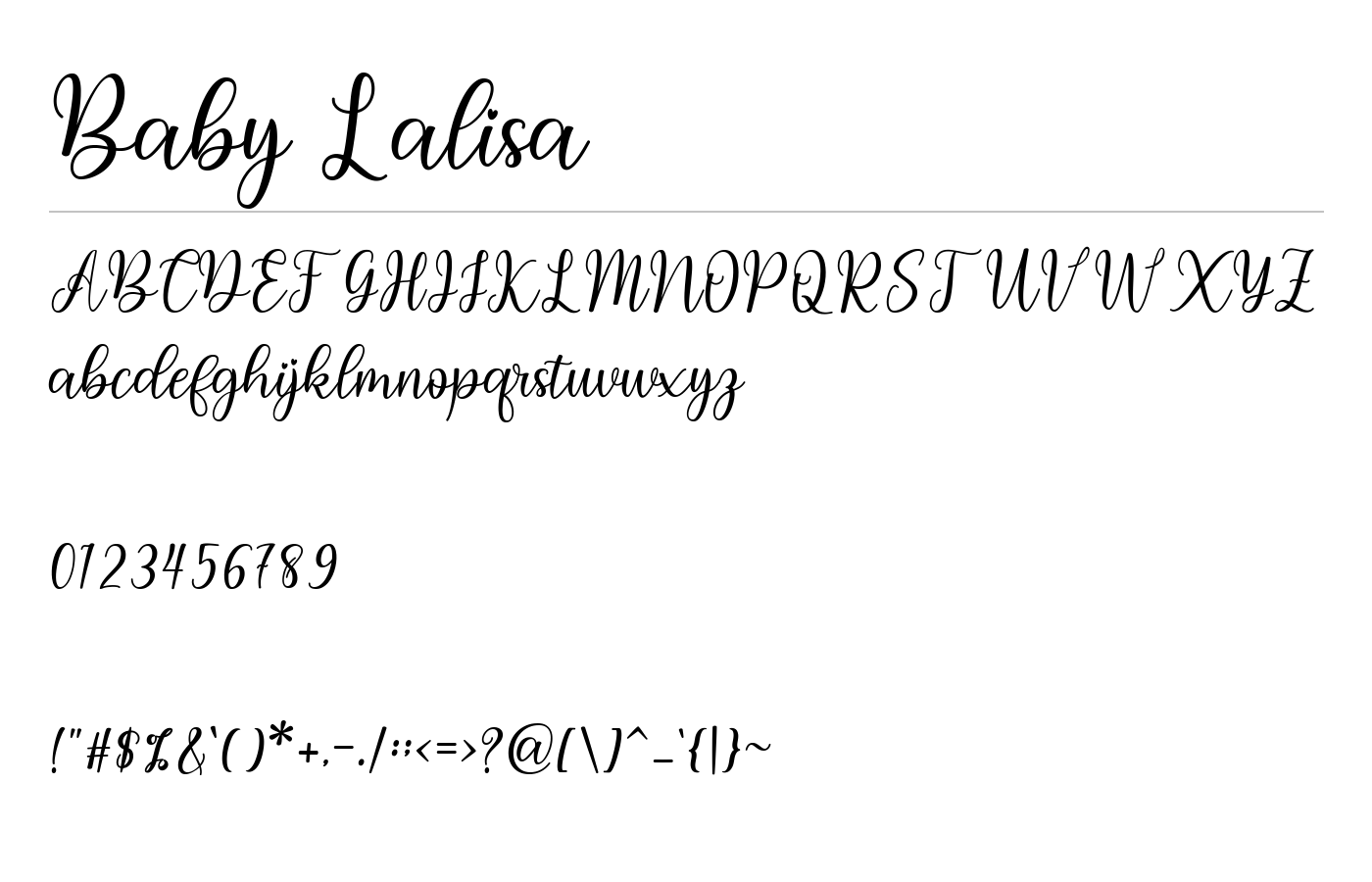
Baby Lalisa is a charming script font that combines elegant, flowing strokes with playful, handwritten warmth. Its slender, slightly condensed letterforms and delicate curves make it perfect for feminine branding, invitations, and creative projects aiming for a stylish yet approachable feel. This font works beautifully in logos, packaging, and headlines where a touch of personality and grace is desired.
Baby Lalisa Font
About Baby Lalisa Font